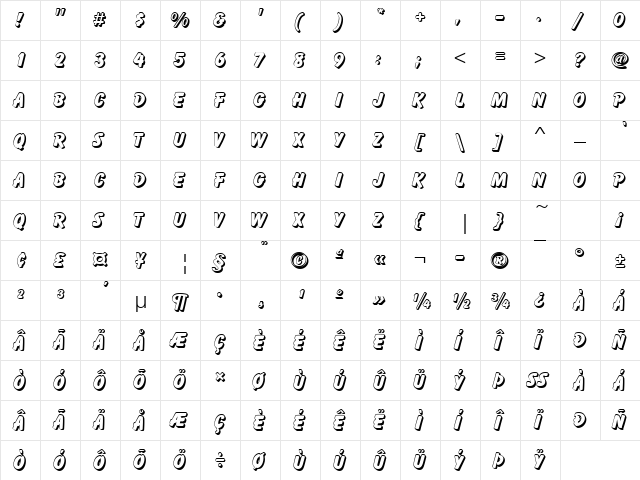
Balloon Becker Drop Shadow Regular
Design Context for Balloon Becker Drop Shadow Typeface
Balloon Becker Drop Shadow is built around its visual character rather than neutral utility — its distinctive forms are designed to make an impression at display sizes.
Font Pairing: Pair with a clean neutral sans-serif for body copy to let Balloon Becker Drop Shadow's character lead without overwhelming the composition.
Pro Tip: Use Balloon Becker Drop Shadow exclusively at display sizes — it was designed to be seen, not read at length. Let a neutral companion handle body copy.